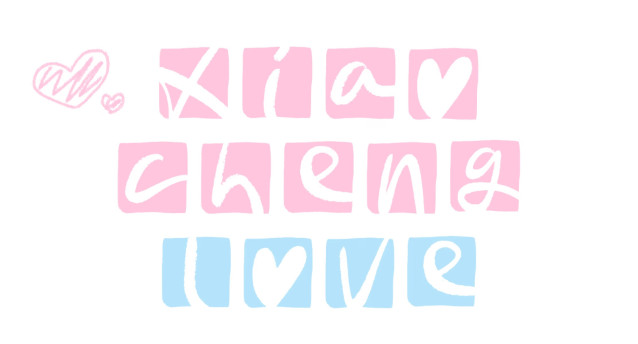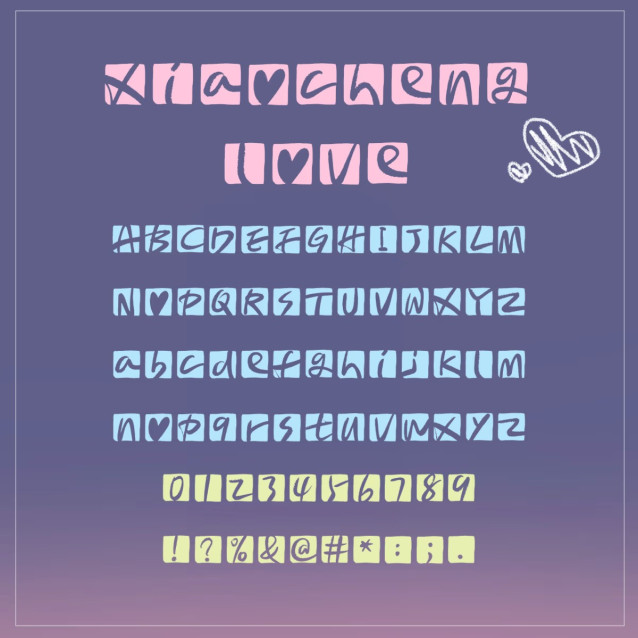
Xiaochenglove Font
Xiaochenglove Font – This is a cute and adorable font, a display font with a strong comic and cartoon feel. With a clean and playful personality, this font will brighten up any project you want to create!
Note of the author:this is a cute and lovely font